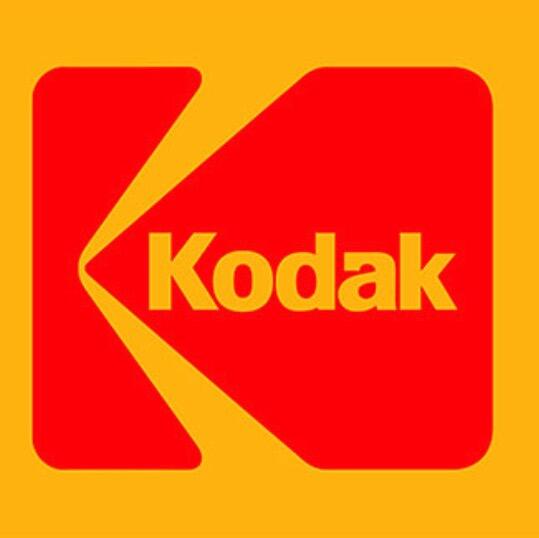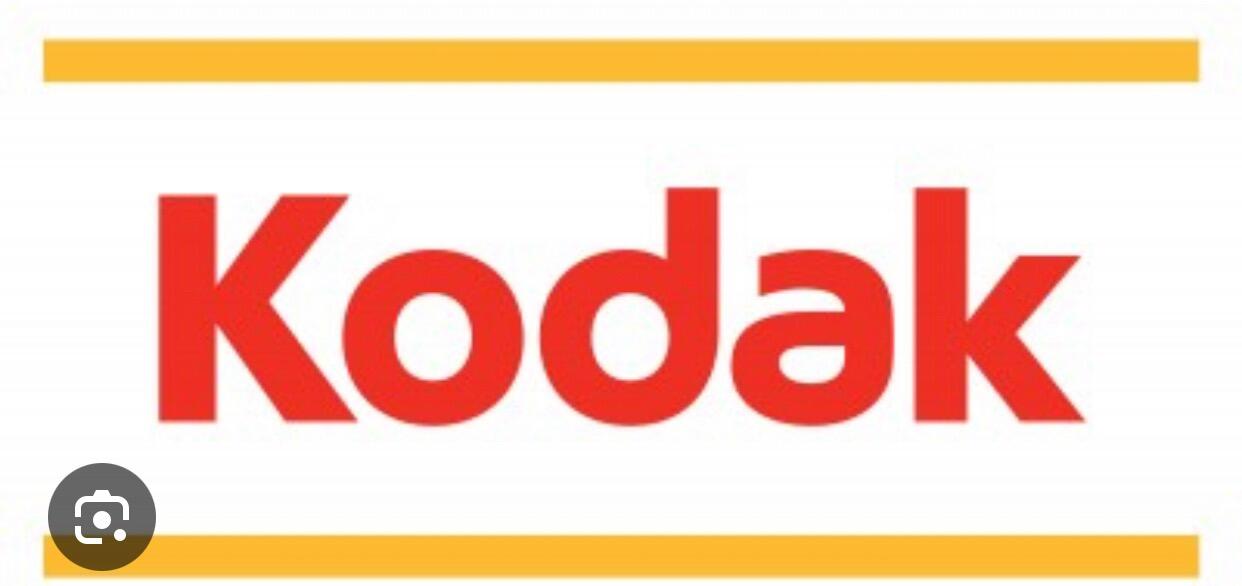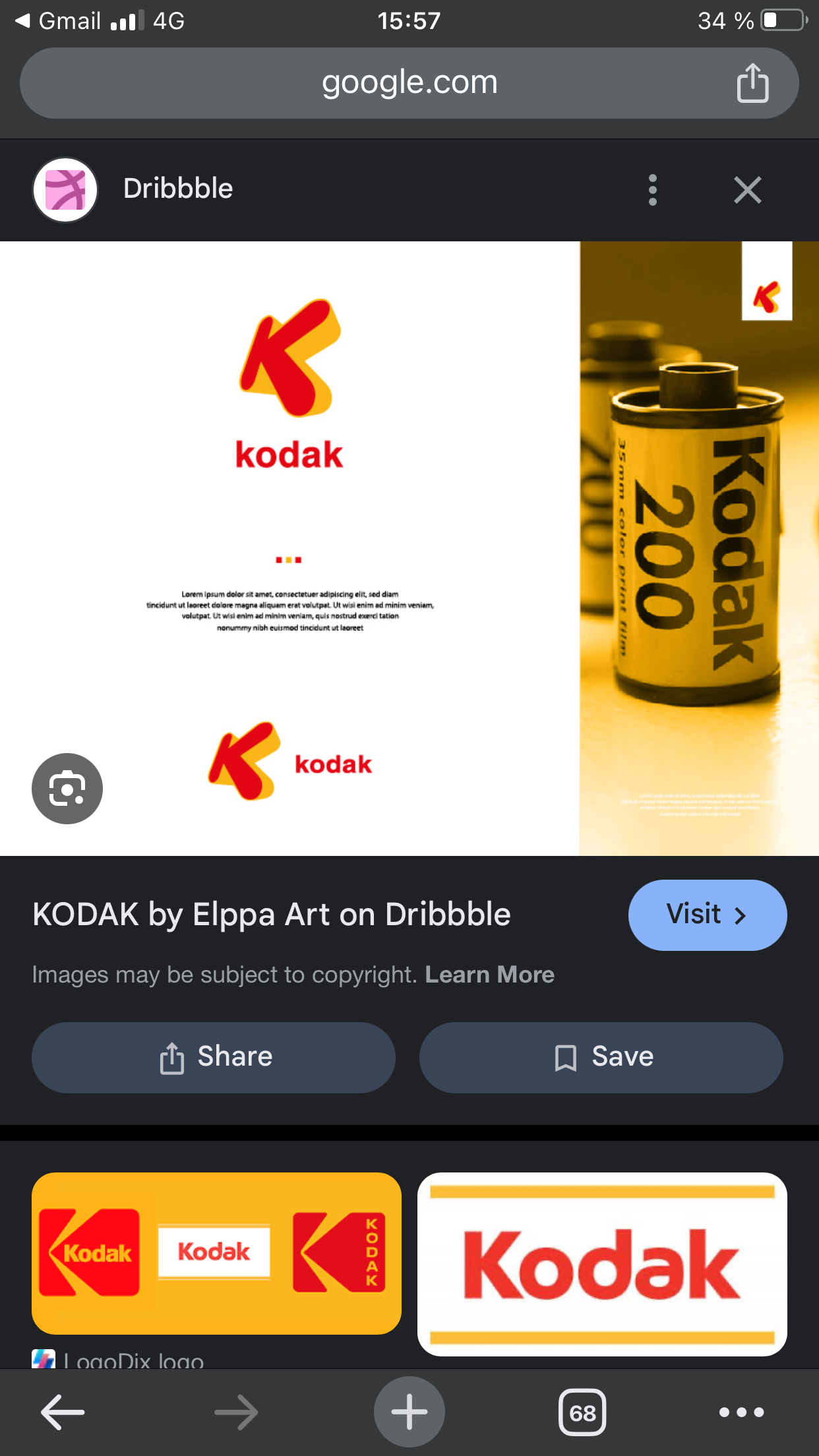
Searching for Kodak font or similiar
Hi! I’m looking for the kodak fonts or similiar fonts!
Thinking of using them in a film school project. Look at the pictures for reference.
For the most part, custom.
The sample with the type set vertically is very close to Univers Bold Extended.
Tahomo Bold, a system font, comes close to the older version of the logo with the distinctive “a,” but you’d have to do some surgery to it to get it to match (fully round the counter on the d, add the “serif” to the overhang of the a). Univers Black is another option for that version.